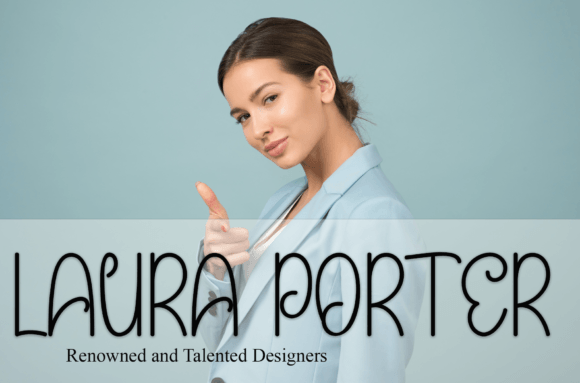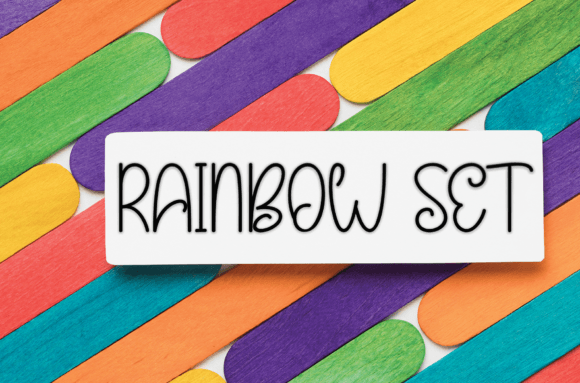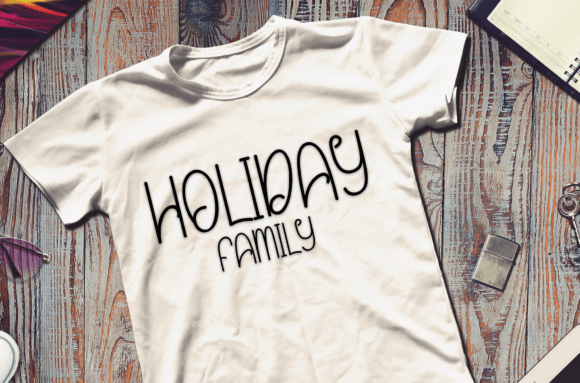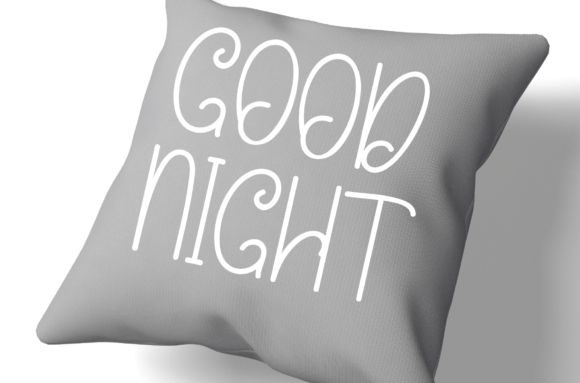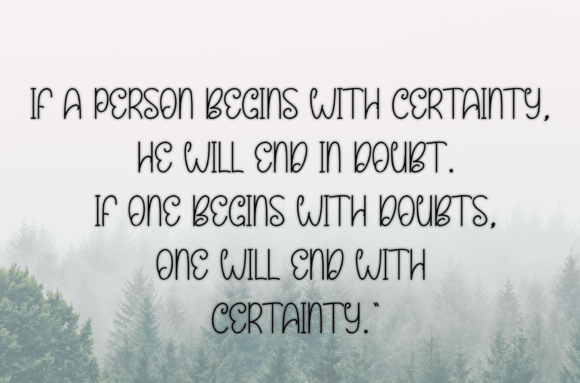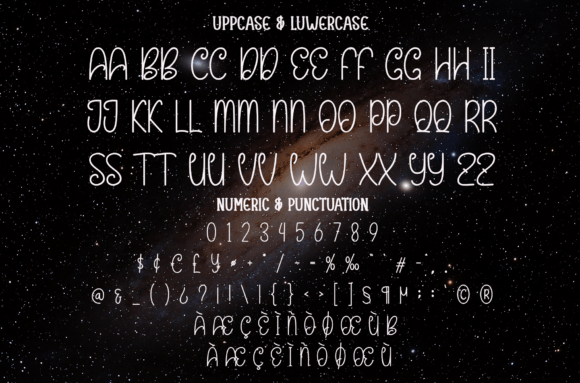
Unleashing the Magic of Handwritten Charm: Galaxy Font
Do you remember the moment when you stumbled upon the perfect font for your latest design project? The excitement, the thrill, and the ‘aha’ moment when everything just clicked? For designers, it’s a moment that never gets old. And, if you’re on the hunt for that perfect handwritten font, we’ve got some great news for you! Introducing the Galaxy Font, a sweet and friendly handwritten font that’s sure to bring a touch of whimsy to your next design project.
Perfect for writing wedding invitations, cards, or any other design that needs a fun touch, Galaxy Font is a valuable addition to any designer’s toolkit. Its fresh and neat aesthetic makes it a standout choice for those looking to add a personal touch to their work. Whether you’re a seasoned pro or just starting out, the Galaxy Font is an excellent choice for designers who want to add a little extra magic to their designs.
Galaxy Font Key Features
- Font Family: Galaxy Font is a sans-serif font family, designed for digital and print media.
- Character Set: Galaxy Font supports a wide range of characters, including Latin, Cyrillic, Greek, and many non-Latin scripts, making it a versatile choice for global designs.
- Unique Characteristics: Galaxy Font features a unique blend of modern and futuristic elements, with a subtle flair of cosmic inspiration, making it perfect for sci-fi, tech, and futuristic designs.
Galaxy Font Review
Overall, I think Galaxy Font is a unique and attention-grabbing choice for any design project. ✨ The font’s combination of cursive and geometric elements creates a visually striking effect that’s perfect for futuristic or sci-fi themes.
Some of the things that I think work well in Galaxy Font include:
- ✨ Its versatility: Galaxy Font can be used in a wide range of contexts, from headlines to body text.
- ✨ Its unique aesthetic: The font’s blend of cursive and geometric elements sets it apart from more traditional fonts.
- ✨ Its readability: Despite its complex design, Galaxy Font is surprisingly easy to read, especially in larger font sizes.
- ⚠️ Limited legibility at small font sizes: While Galaxy Font is readable at larger sizes, it can become difficult to decipher at smaller sizes.
- ⚠️ Limited compatibility: Galaxy Font may not work well in all environments, such as in older browsers or on lower-resolution screens.
Overall, I think Galaxy Font is a great choice for designers who want to add a touch of futurism to their projects. While it has some limitations, its unique aesthetic and versatility make it a worthwhile option to consider.
Galaxy Font is ideal for creating futuristic, otherworldly designs. Use it to add a touch of sci-fi flair to your presentations, posters, or digital art. To get the most out of Galaxy Font, experiment with different font sizes, colors, and styles to create a unique visual effect.